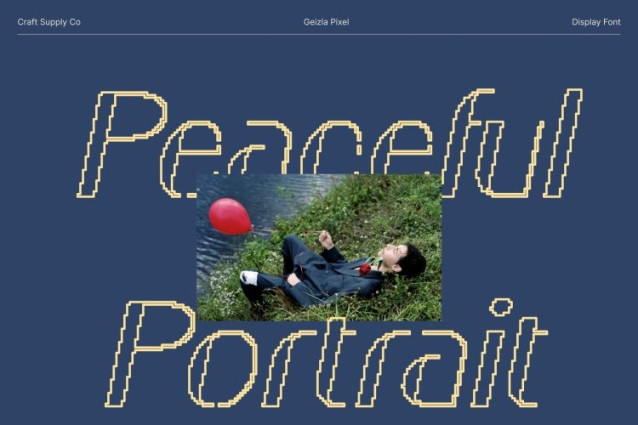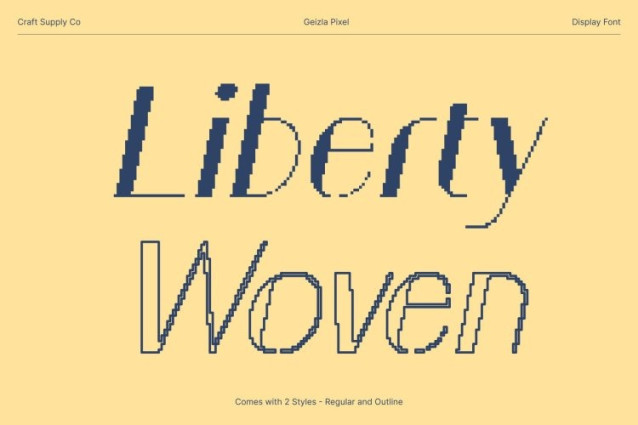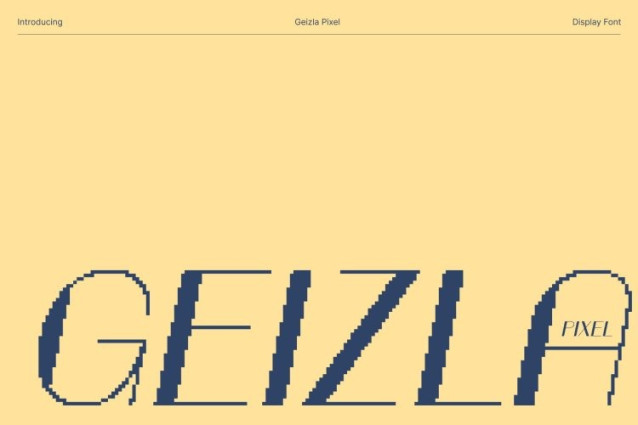
Geizla Pixel Font
Geizla Pixel Font This is a modern sans serif typeface that seamlessly blends elegance with a clean, professional aesthetic. Its structured forms and precise pixel construction create a refined appearance, making it an excellent choice for organizational and corporate-focused designs that demand clarity and sophistication.
Modern Style with Refined Character
With sleek lines and a contemporary silhouette, this font offers a fresh interpretation of classic sans serif typography. The subtle pixelated details add a distinctive digital touch while preserving a polished, elegant look suitable for professional environments.
Perfect for Corporate and Display Use
From corporate reports and presentations to business logos and branding materials, this font delivers confidence and modern refinement. Its balanced proportions and crisp structure ensure strong readability and visual impact in display settings.
Versatile and Practical
Despite its refined style, this is highly versatile and easy to use. It performs well at both large and small sizes, making it suitable for headlines, banners, body text, and digital interfaces. Combining modern elegance with a pixel-art influence, this font enhances any design with professionalism and contemporary appeal.